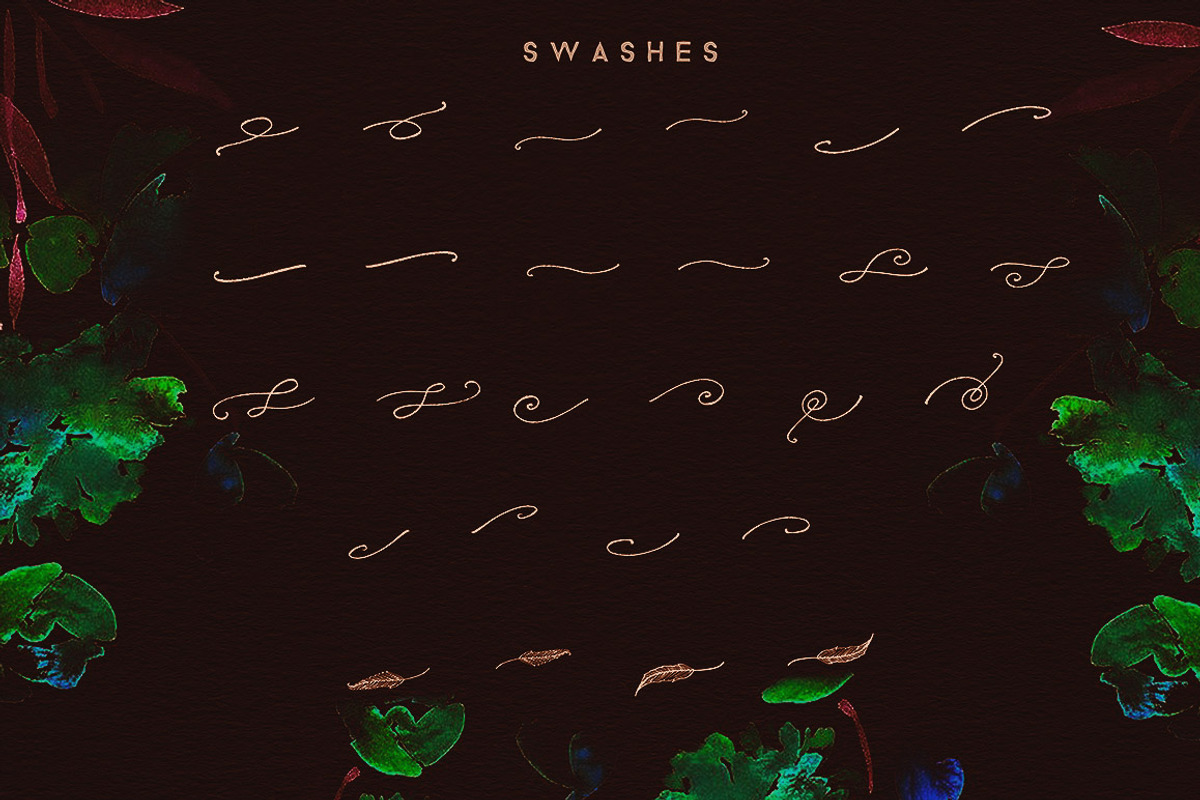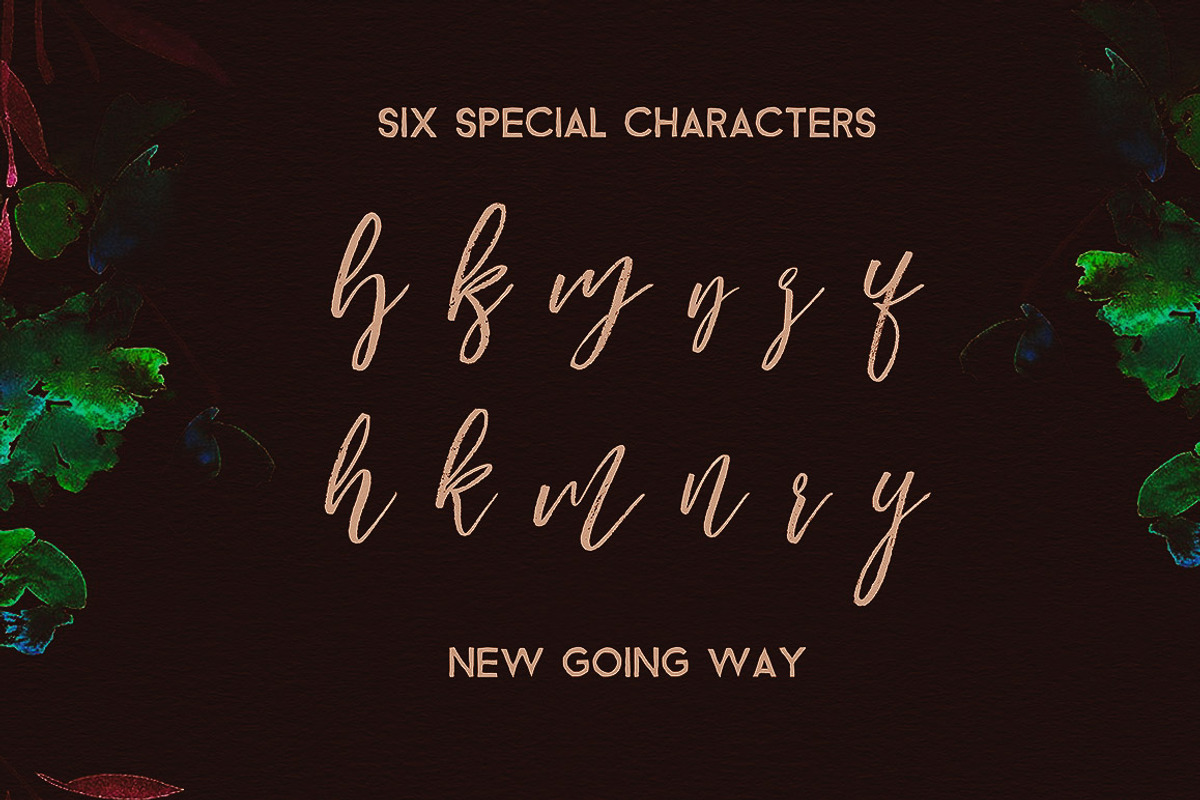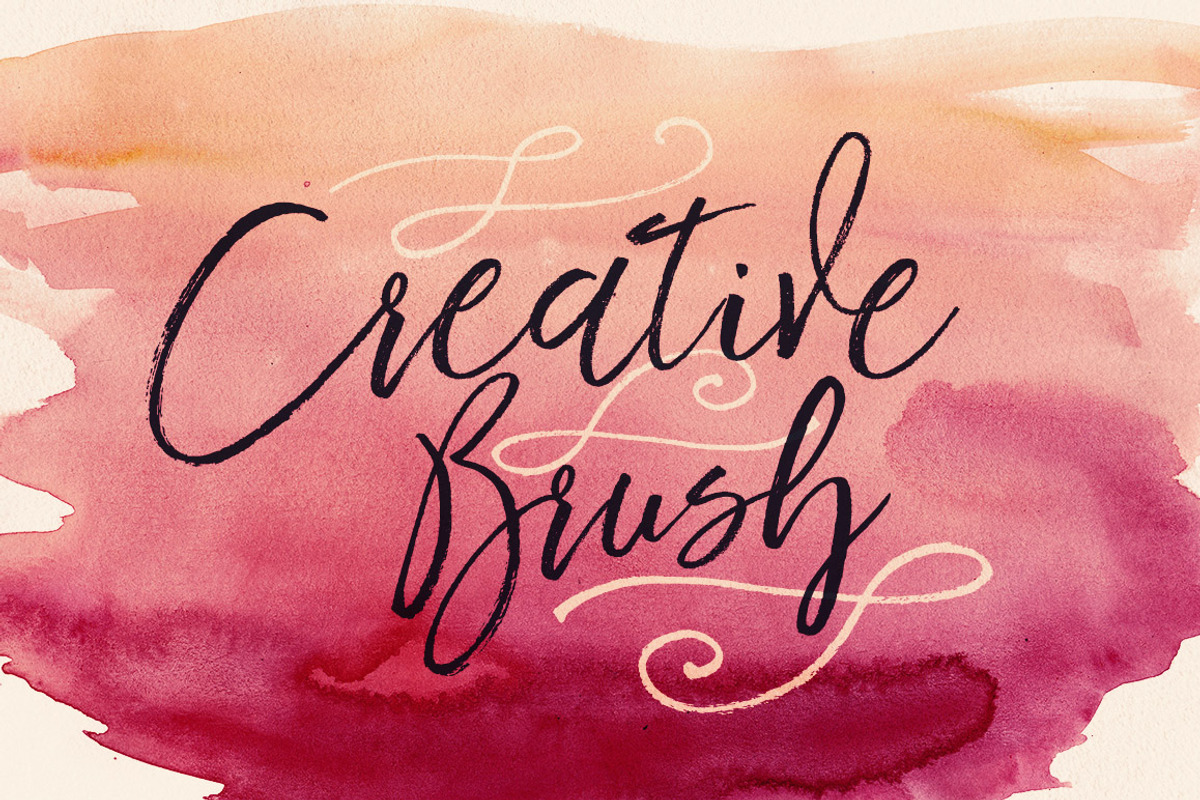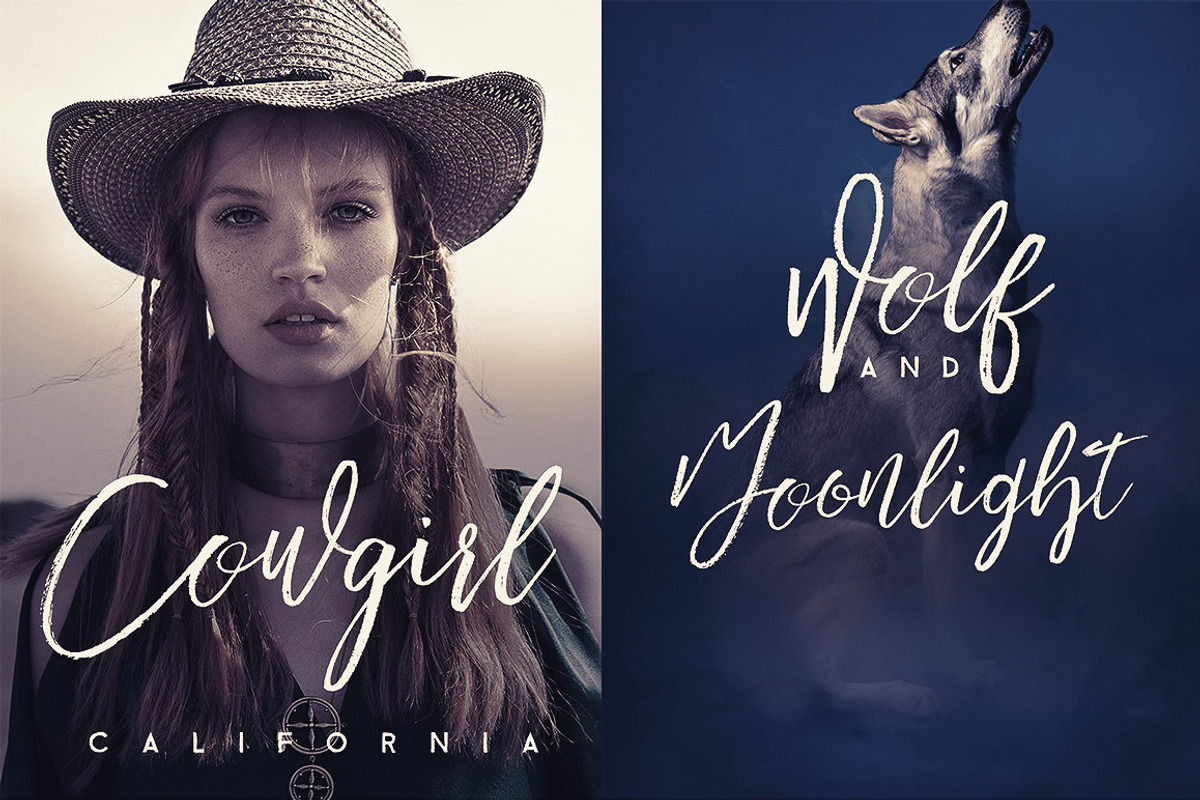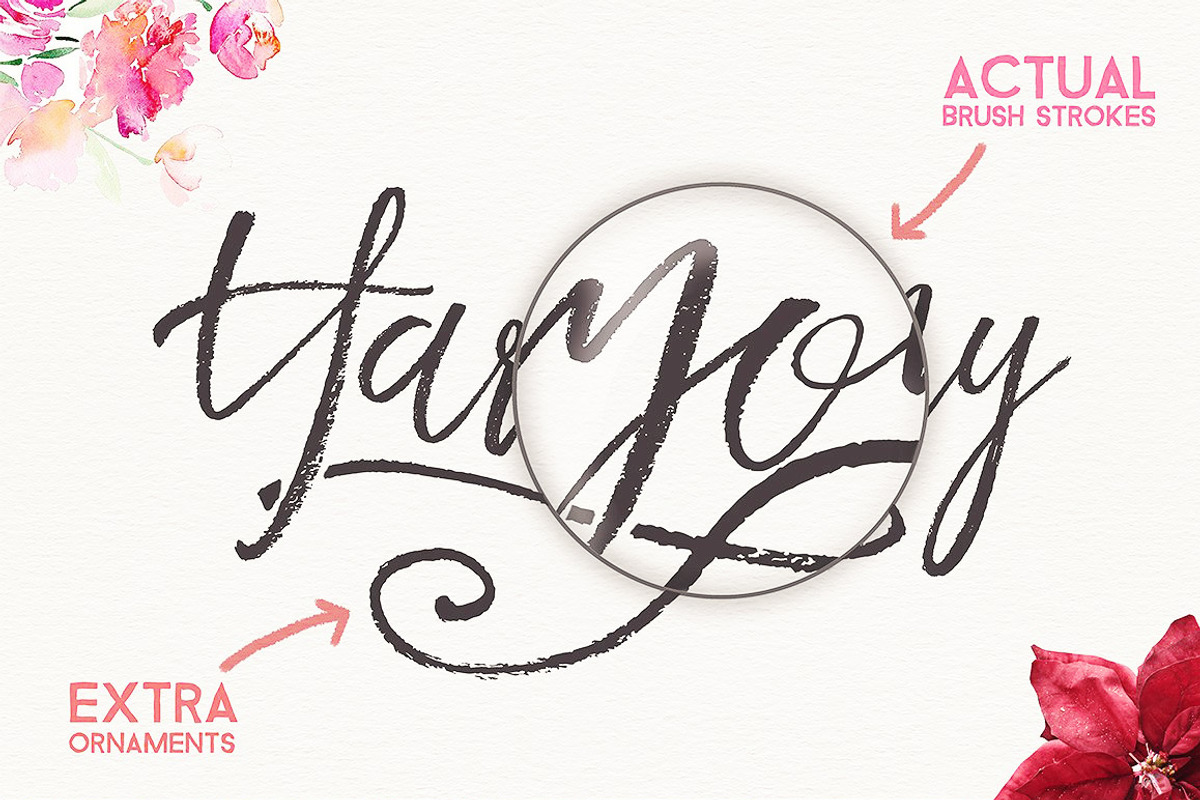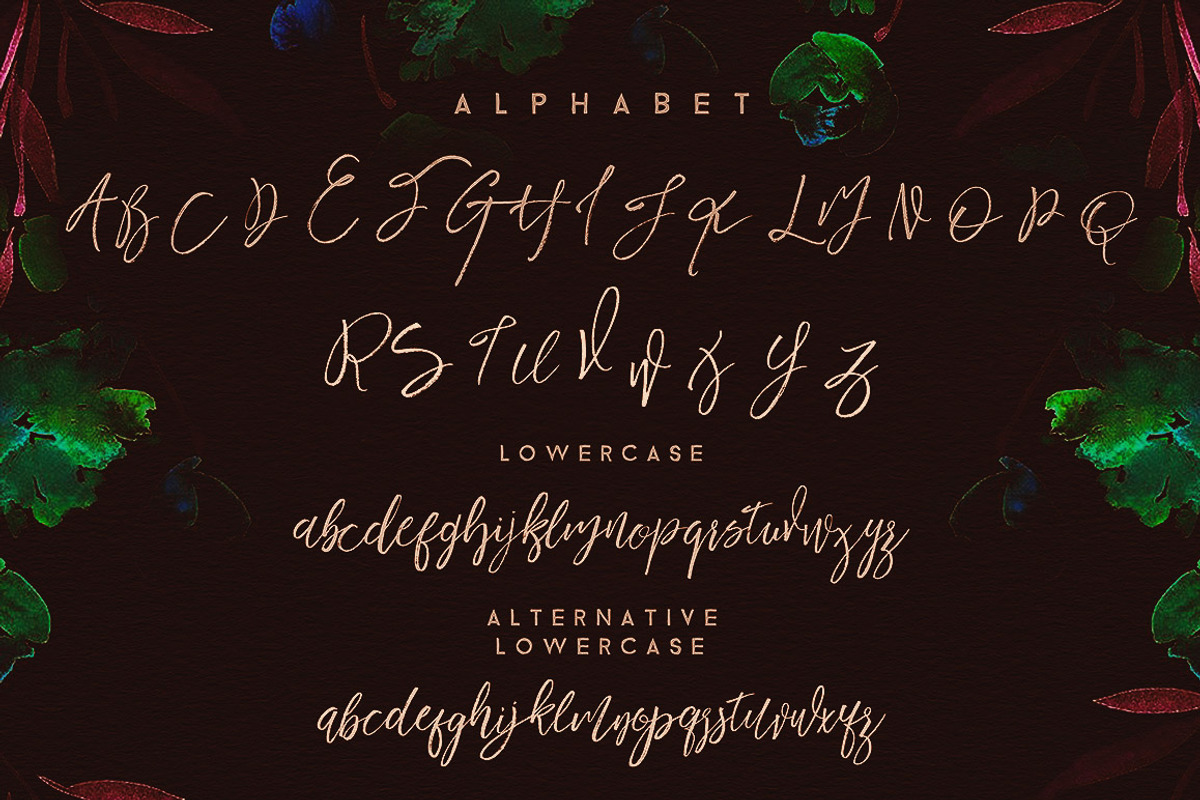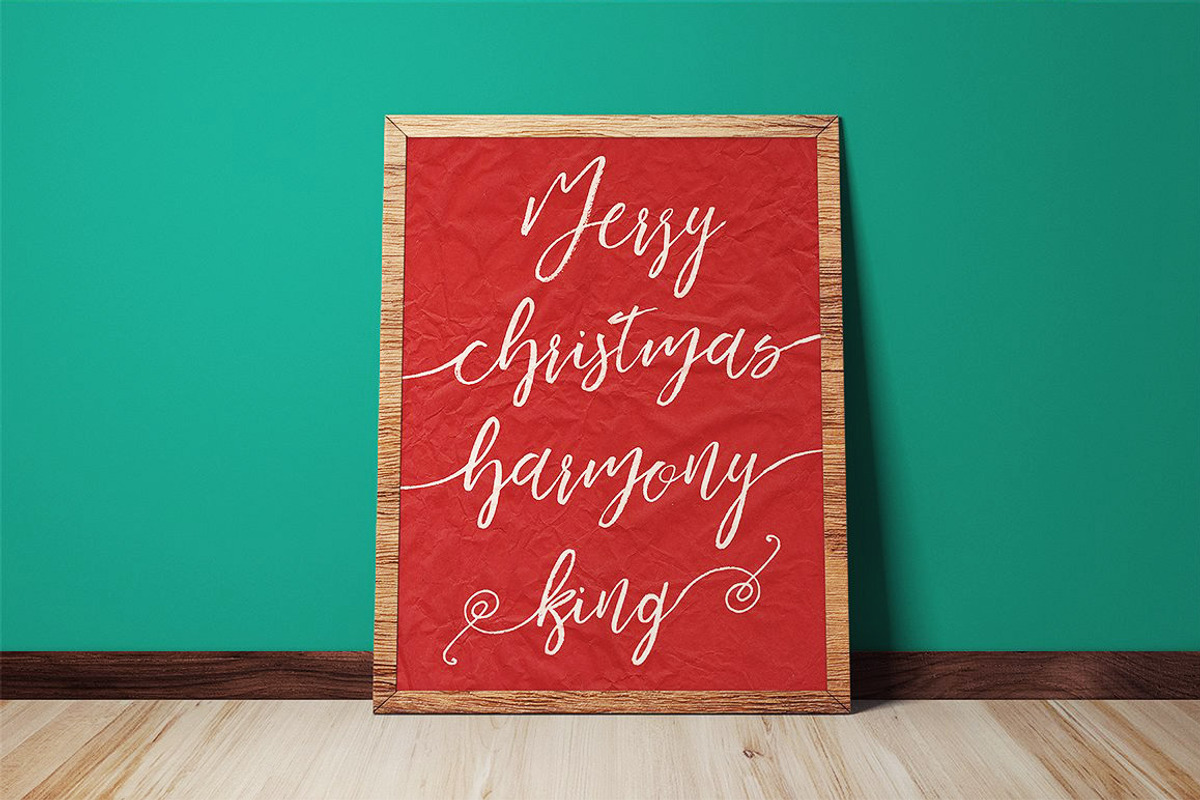
Harmony King - Brush Font
Cool handwritten brush style font with multilanguage support for your new projects. Great for grunge or artistic projects!
Harmony King - Brush Font by Cruzine fits naturally into Branding, posters, packaging, typography.